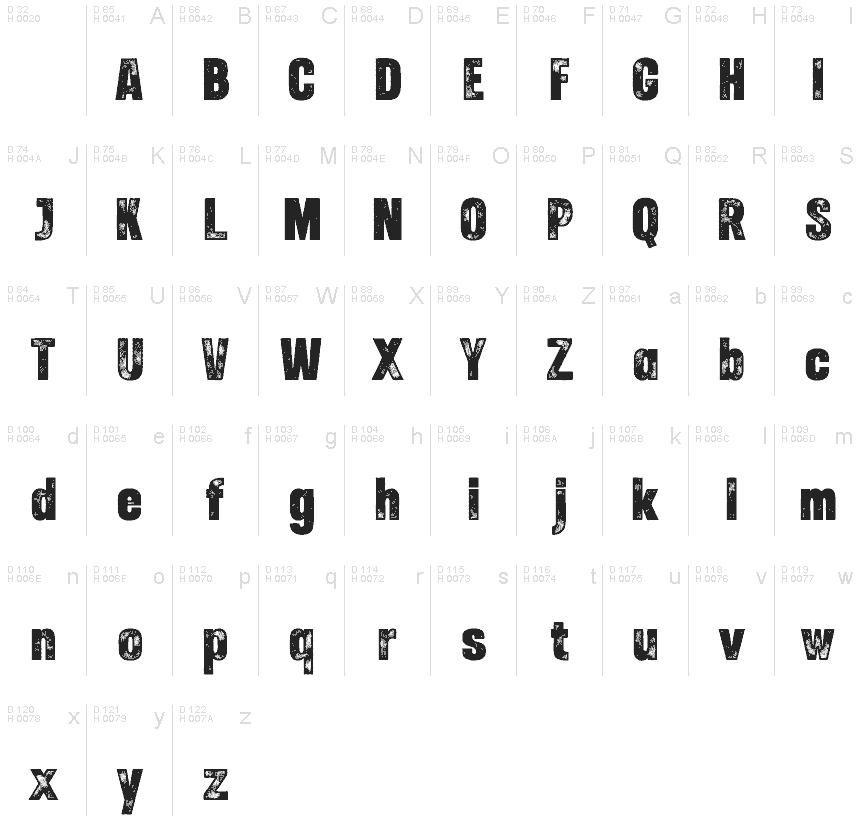
Arnel Vintage Demo Stamp
Arnel Vintage Stamp font is a free display font made by Craft Supply Co with impressive grunge texture. The distressed appearance adds a retro aesthetic to this condensed and bold typeface. Its eroded style helps bring a vintage charm, while the rugged feel gives it an industrial vibe.
Use the font for stamps, logos, packaging designs, quotes, labels or posters related to bikes or music bands. It can be used on book covers and headings, but it’s also perfect for menus and even magazine covers. It has an excellent presence as typography on social media and website designs.